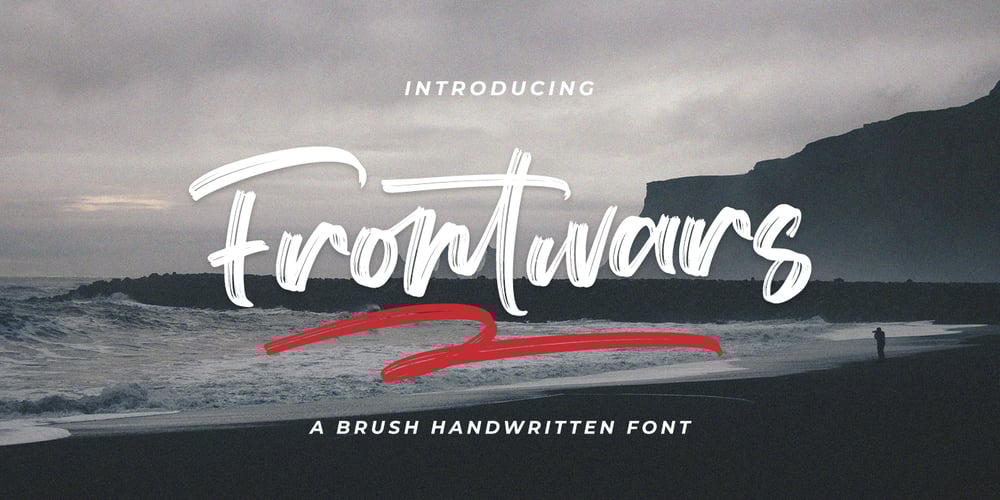
Frontwars Font Family was designed by Hayinah and published by Rockboys Studio. Frontwars contains 2 styles and family package options. Frontwars is a natural handwritten brush font. It’s ideal for branding and decorating your projects, creating wedding invitations, book covers, marketing, and much more!